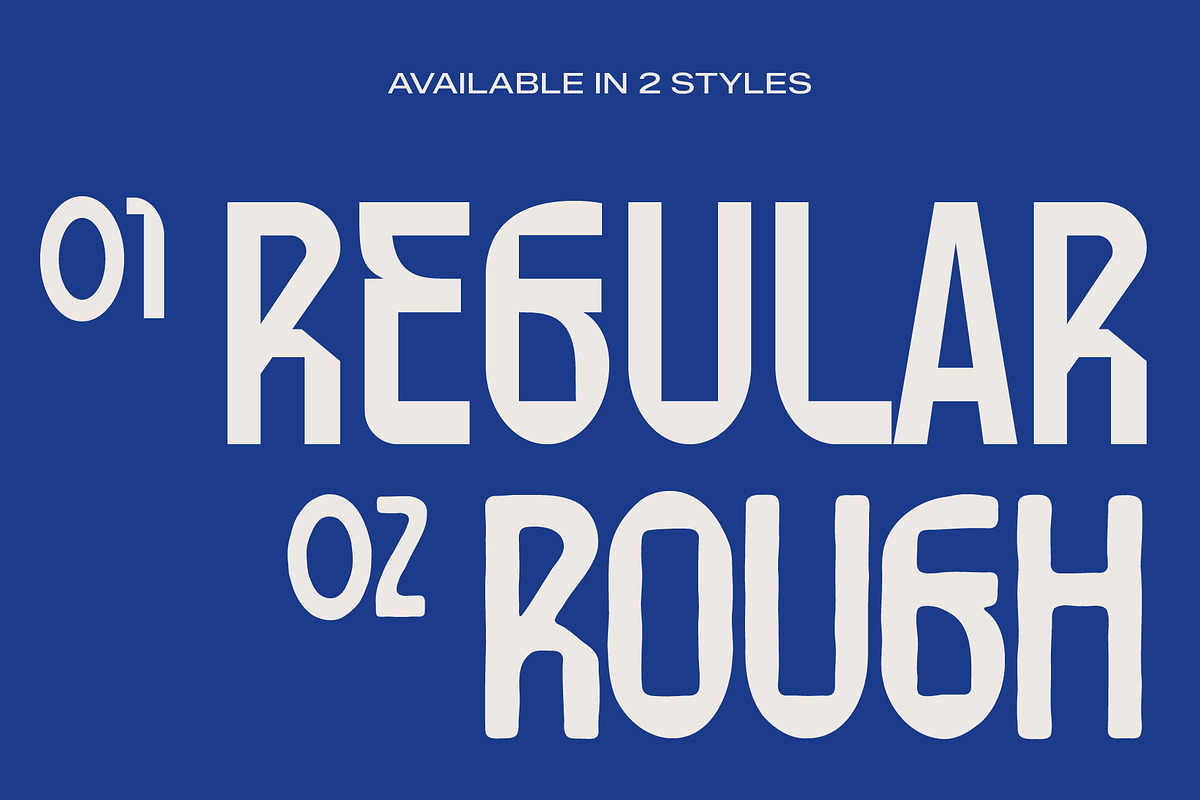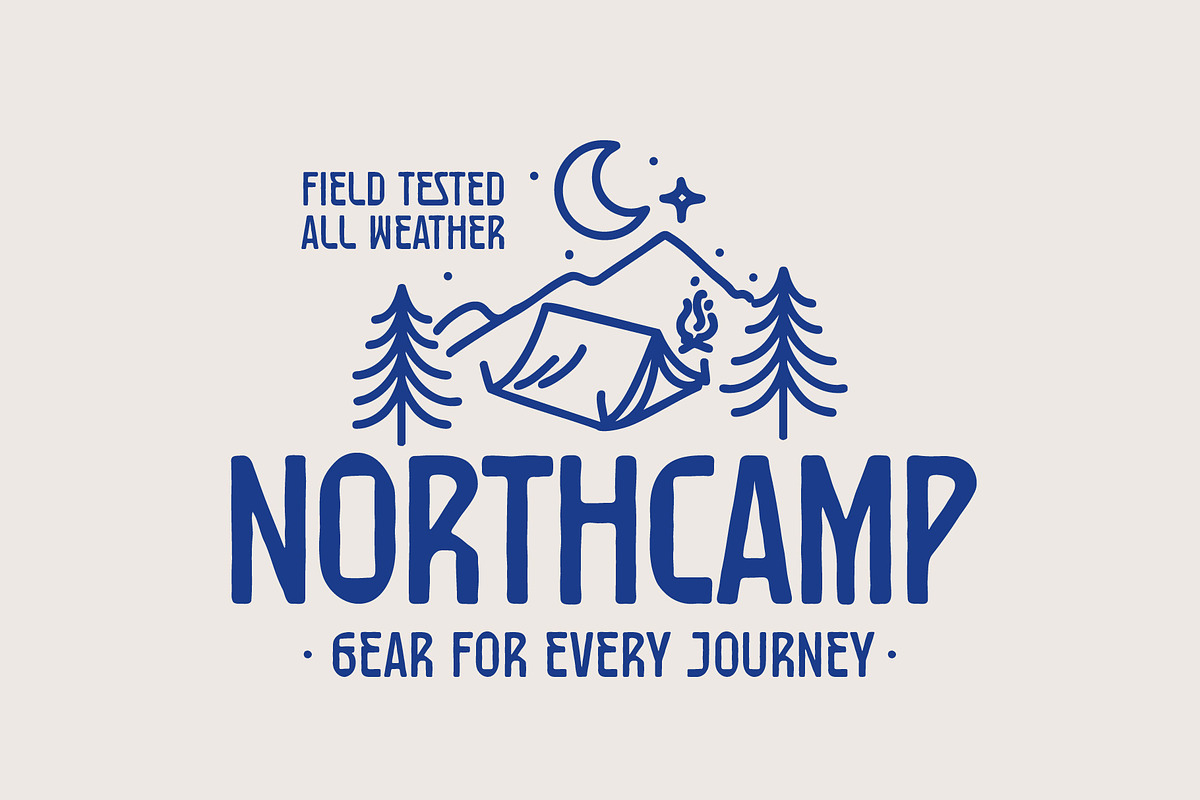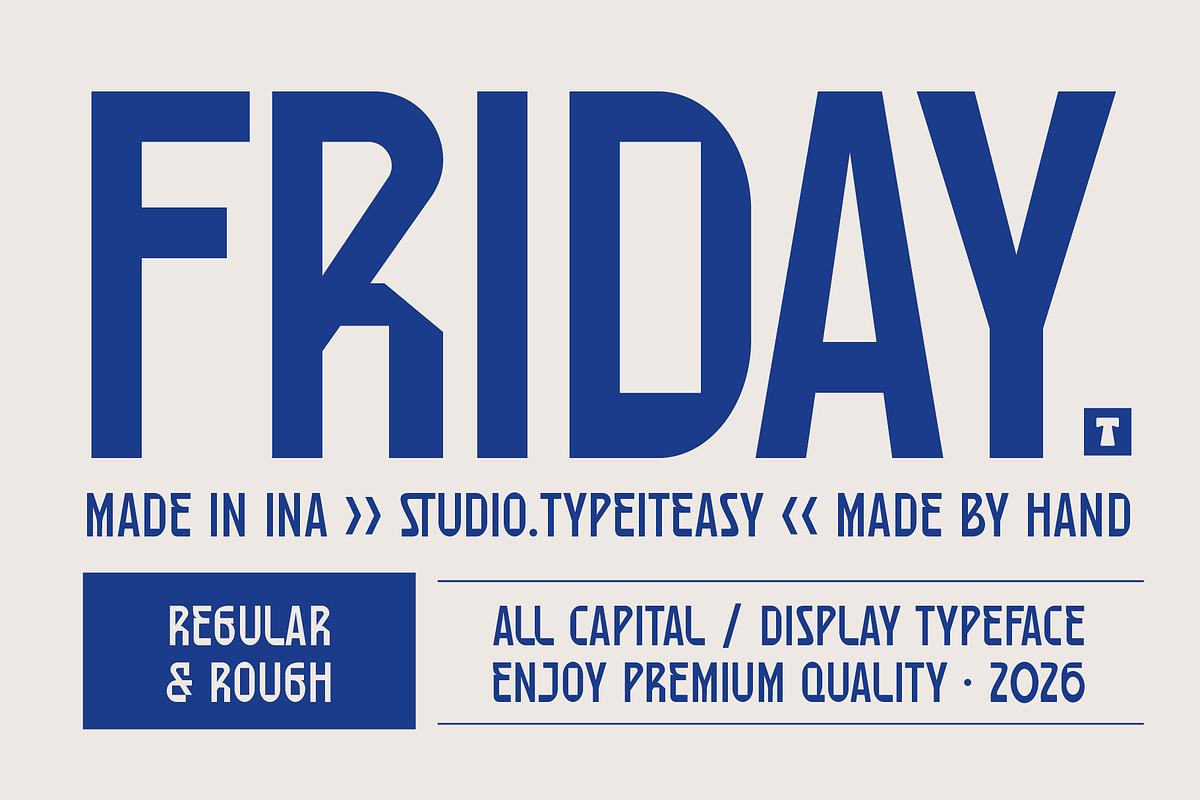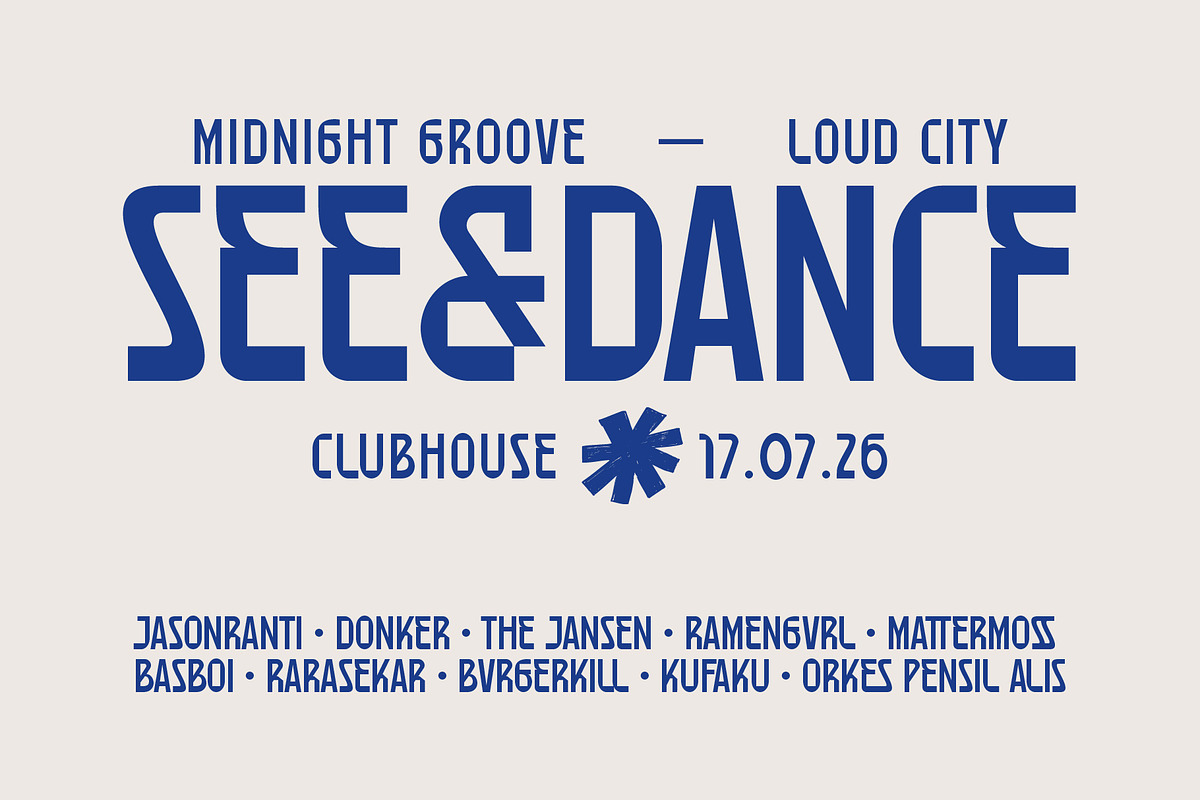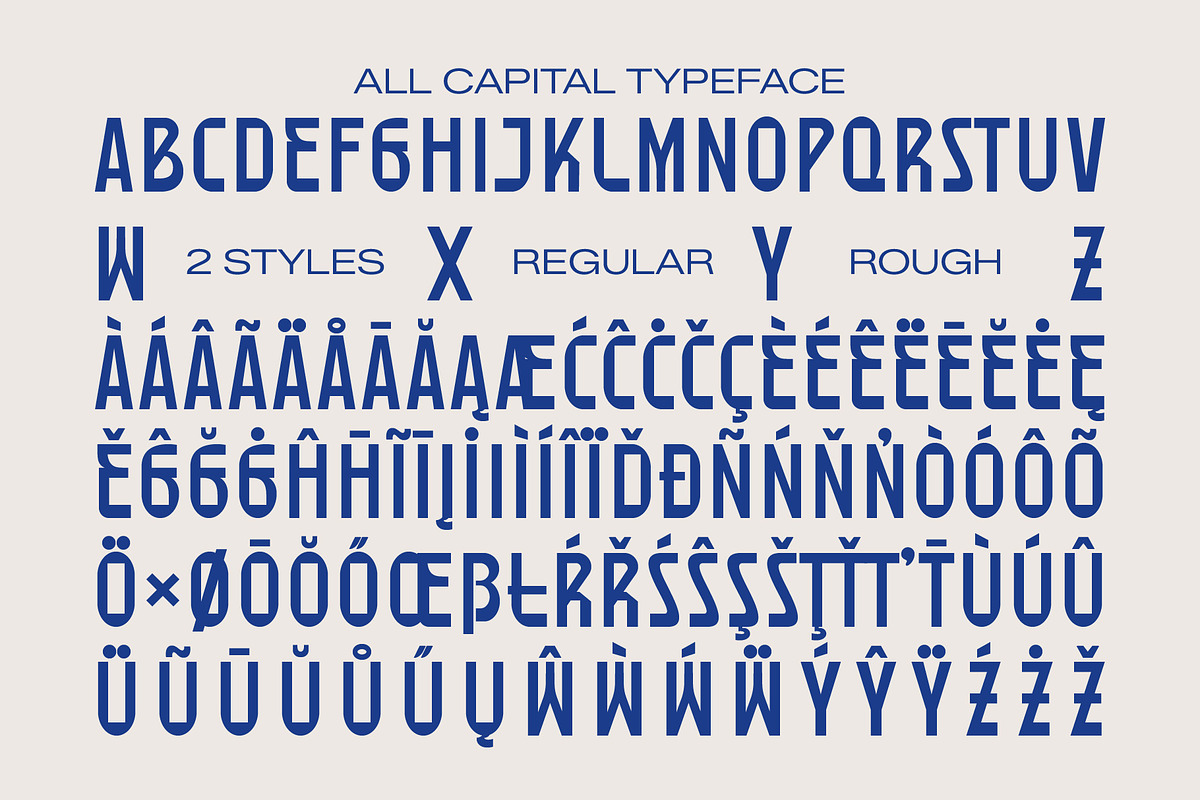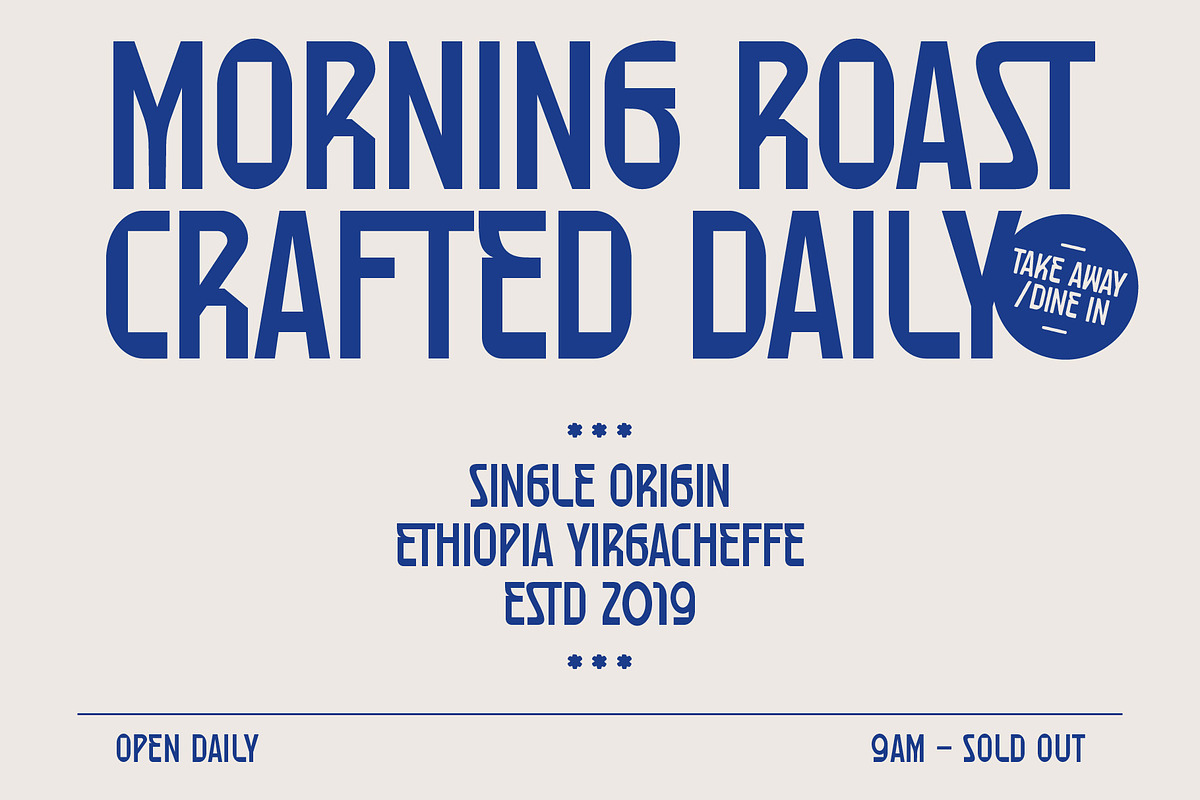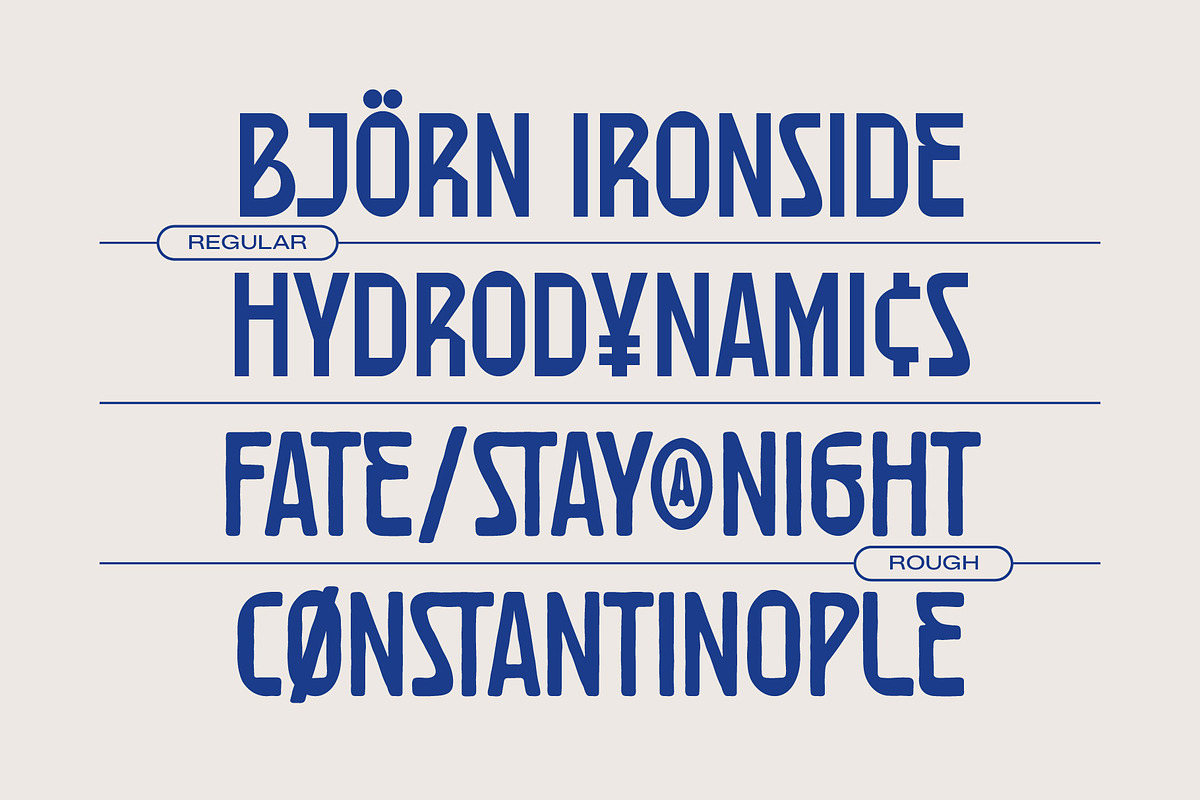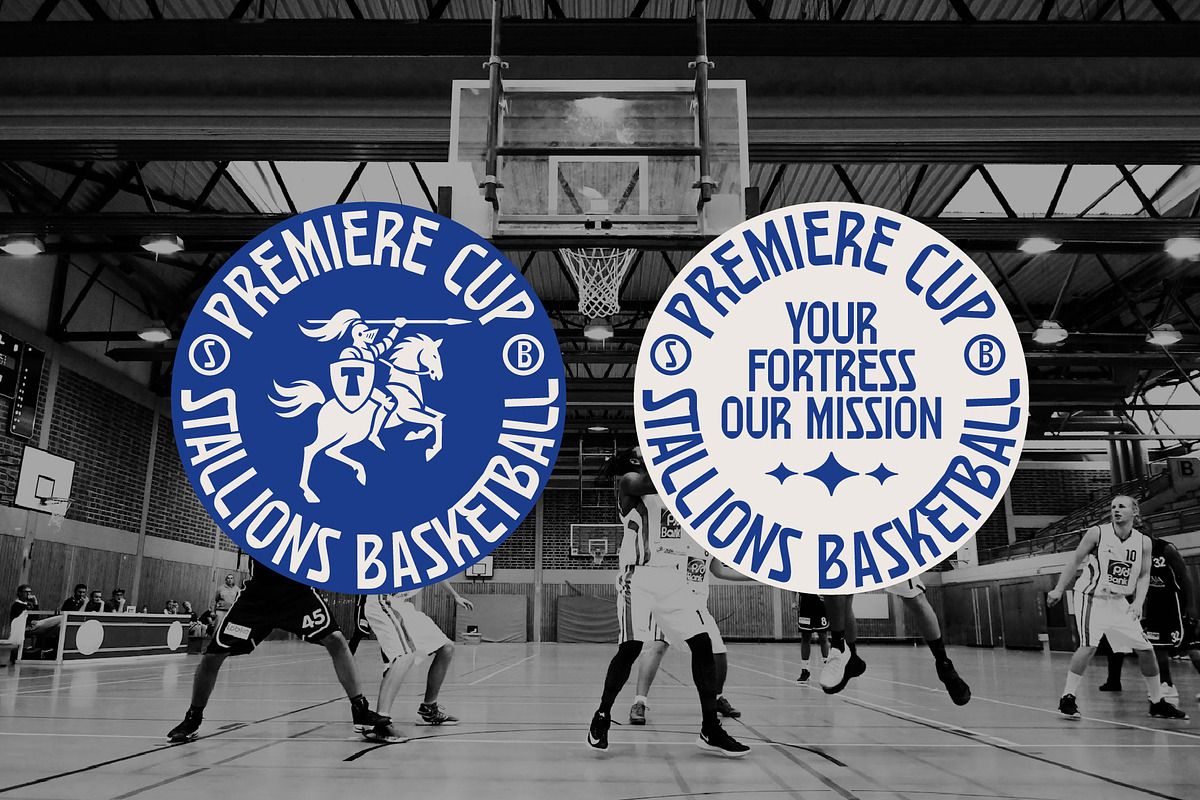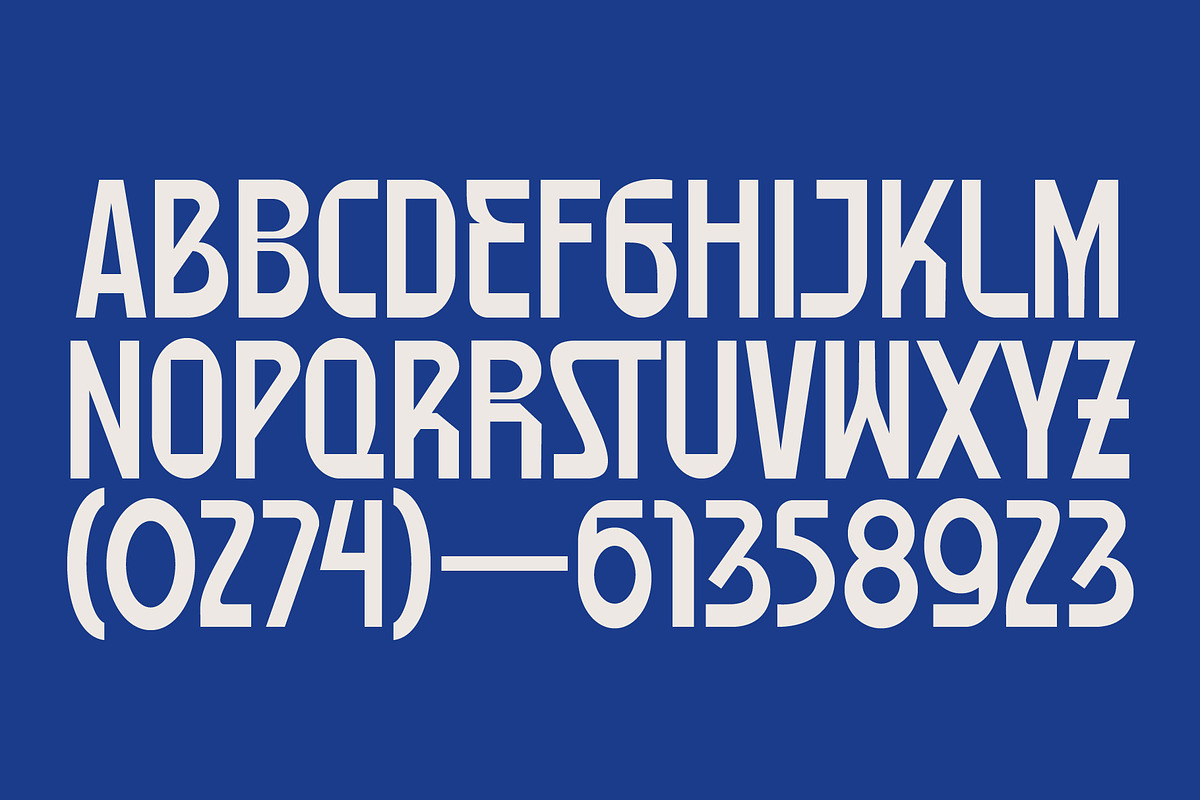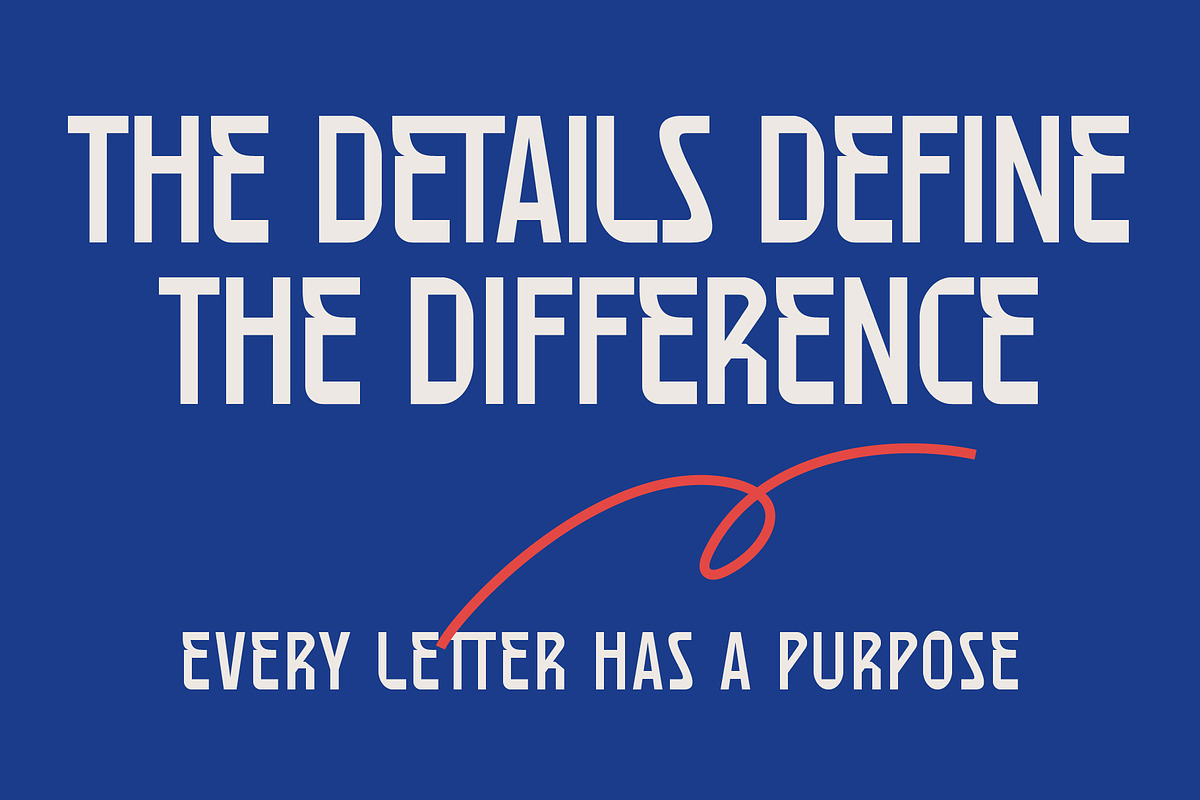
ST Friday — All Caps Display
ST Friday - All Caps Display Typeface brings the true “Friday feeling” into your designs — relaxed, bold, creative, and full of personality. Designed with chunky, hand-drawn curves and a playful silhouette, this all-caps display font captures effortless weekend energy while keeping a strong visual presence.
With its rounded forms and expressive character, ST Friday is perfect for designers who want to combine professional impact with a casual-cool attitude. It feels friendly, organic, and confident — making it ideal for branding, packaging, posters, and social media graphics that need to stand out without feeling rigid.
Whether you're building a bold brand identity or creating vibrant promotional visuals, ST Friday delivers eye-catching results with a human touch.
ST Friday Regular
ST Friday Rough
Support for multilingual language